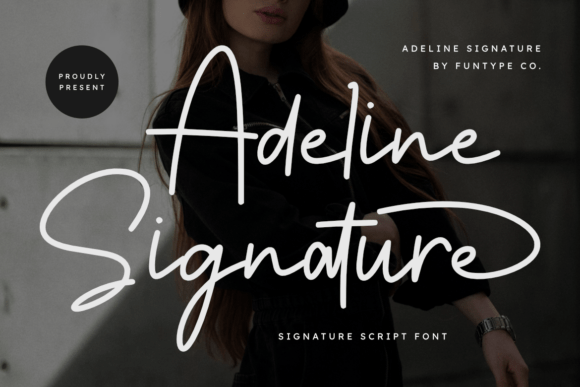
The Power of a Perfect Signature: Unleashing the Potential of Adeline Signature Font
As creatives, we’ve all been there – staring at a blank page, struggling to bring our vision to life. And then, it happens. A spark of inspiration strikes, and our ideas begin to flow. For designers seeking a bold statement, that spark often comes in the form of the perfect font. Enter Adeline Signature Font, a game-changing script font designed to make a lasting impression.
This elegant signature script font is more than just a pretty face – it’s a powerful tool for creating impactful typography. With its clean design and natural flow, Adeline Signature Font is perfect for strong headlines, modern posters, and branding. Whether you’re a seasoned pro or just starting out, this font is sure to elevate your visuals and leave a lasting impression.
- Unique Characteristics: The Adeline Signature Font features elegant and flowing script letters, perfect for creating a personal and professional signature.
- Font Style: The font comes in a single style, but with multiple ligatures and swashes to add a touch of elegance and sophistication.
Adeline Signature Font Review
Overall, I’m quite impressed with the Adeline Signature Font. It’s a beautiful, elegant script font that works well for invitations, branding, and other high-end designs. ✨ The font’s flowing lines and subtle flourishes give it a sophisticated, luxurious feel that’s perfect for making a statement.
Here are some of the things that I think work particularly well:
- ✨ Elegant and refined aesthetic
- ✨ Comes in multiple weights and styles
However, I do have a few concerns:
- ⚠️ Limited availability in certain font sizes
- ⚠️ May not be as readable in smaller text sizes
Overall, I think the Adeline Signature Font is a great choice for designers who want to add a touch of sophistication and elegance to their designs. While it may have a few limitations, the benefits far outweigh the drawbacks. With a little creativity and experimentation, you can achieve some truly stunning results with this font.
The Adeline Signature Font is ideal for creating elegant and sophisticated designs, such as wedding invitations, business cards, and branding materials. To get the most out of the font, use it in combination with other elegant fonts and design elements. Experiment with different font sizes, colors, and styles to create a unique and eye-catching design.